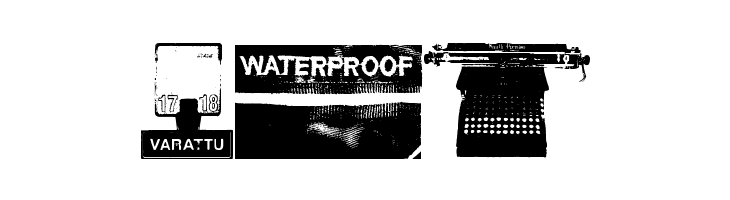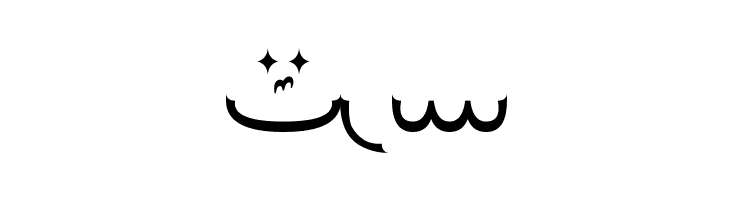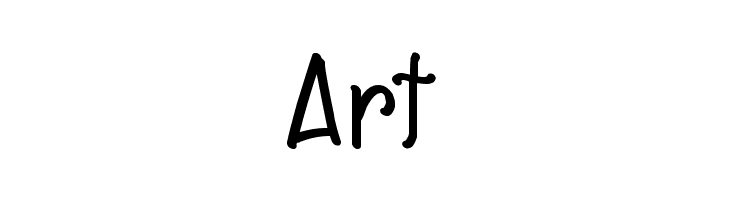
( Fonts by www.junkohanhero.com )
A decorative and eclectic font with characters made from unique graphic elements.
( Fonts by Grafito Design - dibujosenlinea.ideasintegrales.net )
A bold, angular font with a chiseled, geometric style.
( Fonts by Press Gang Studios - Andeh Pinkard - www.pressgang-studios.com )
A playful, hand-drawn font with a whimsical and friendly style.
( Fonts by www.omniglot.com )
A modern Arabic script font with elegant curves and clear numerals.
( Fonts by Steve Ferrera )
A playful, polka-dotted font with bold, irregular characters.
( Fonts by Steve Ferrera )
A bold, playful font with a hand-drawn, cartoonish style and boxed uppercase letters.